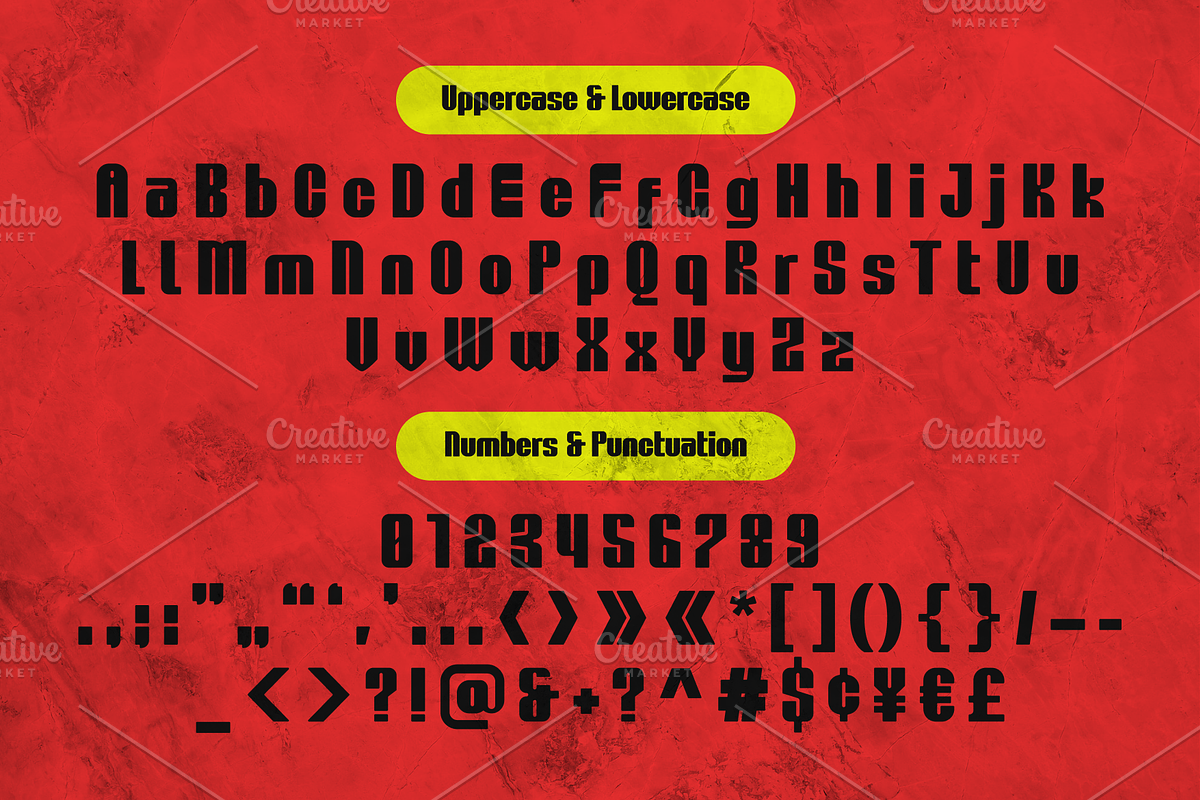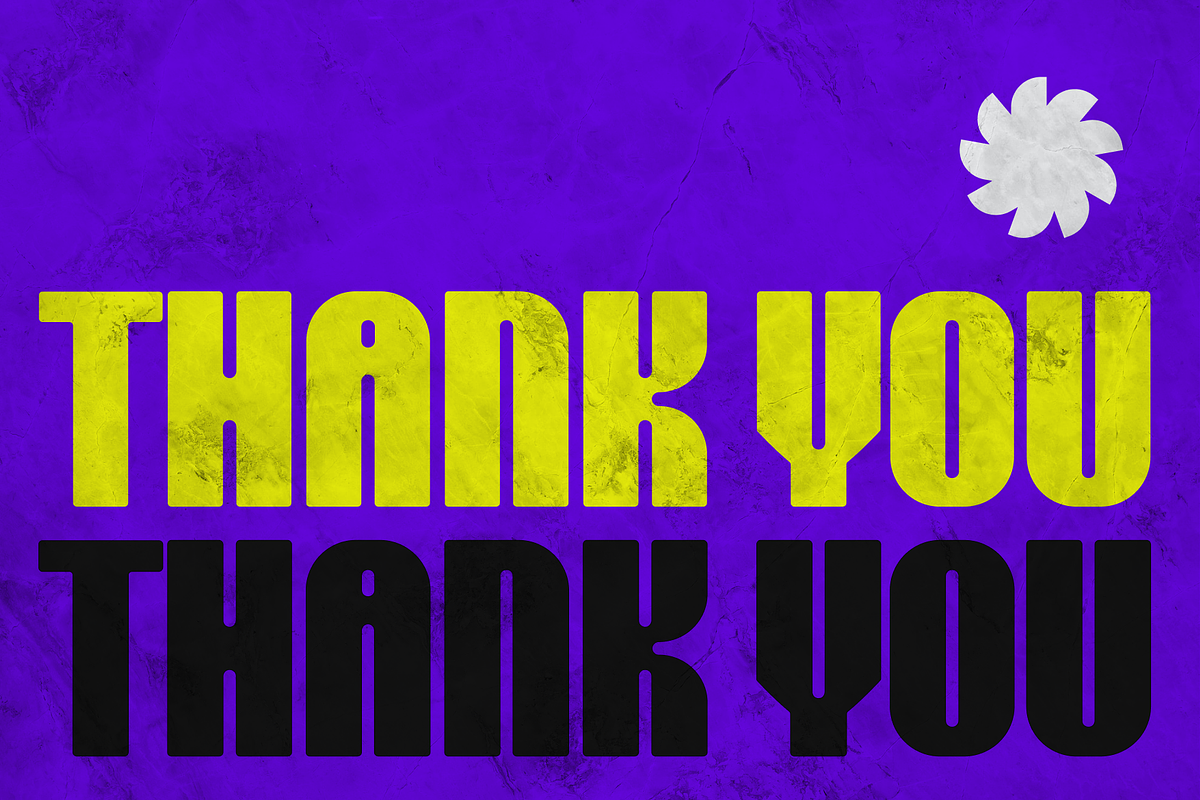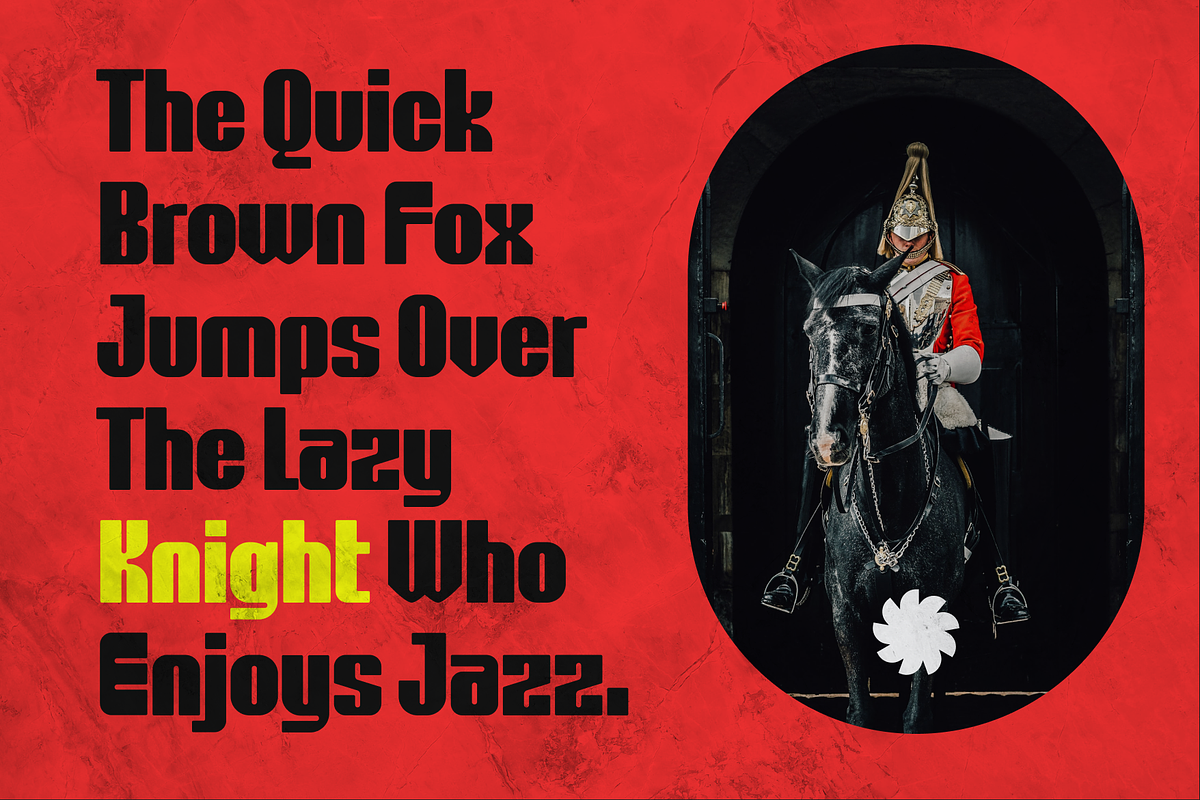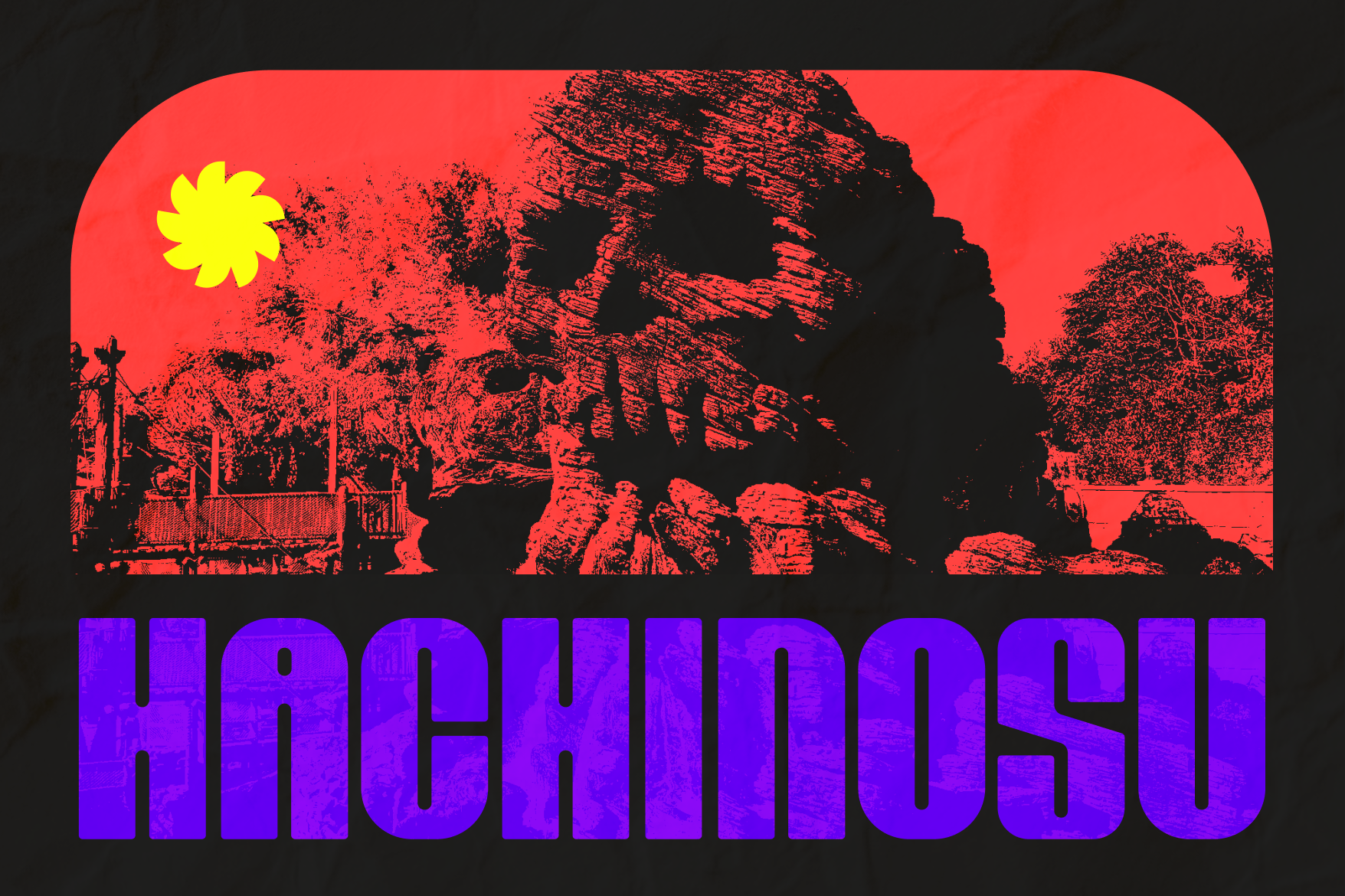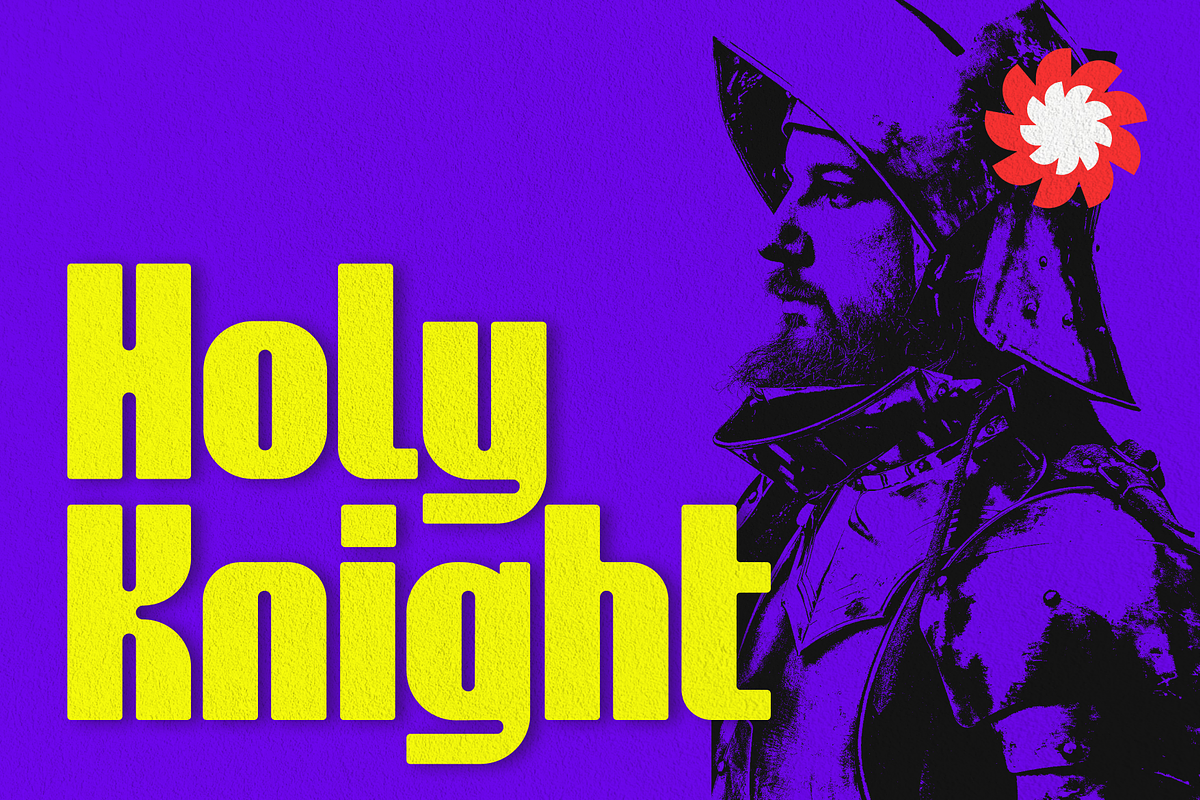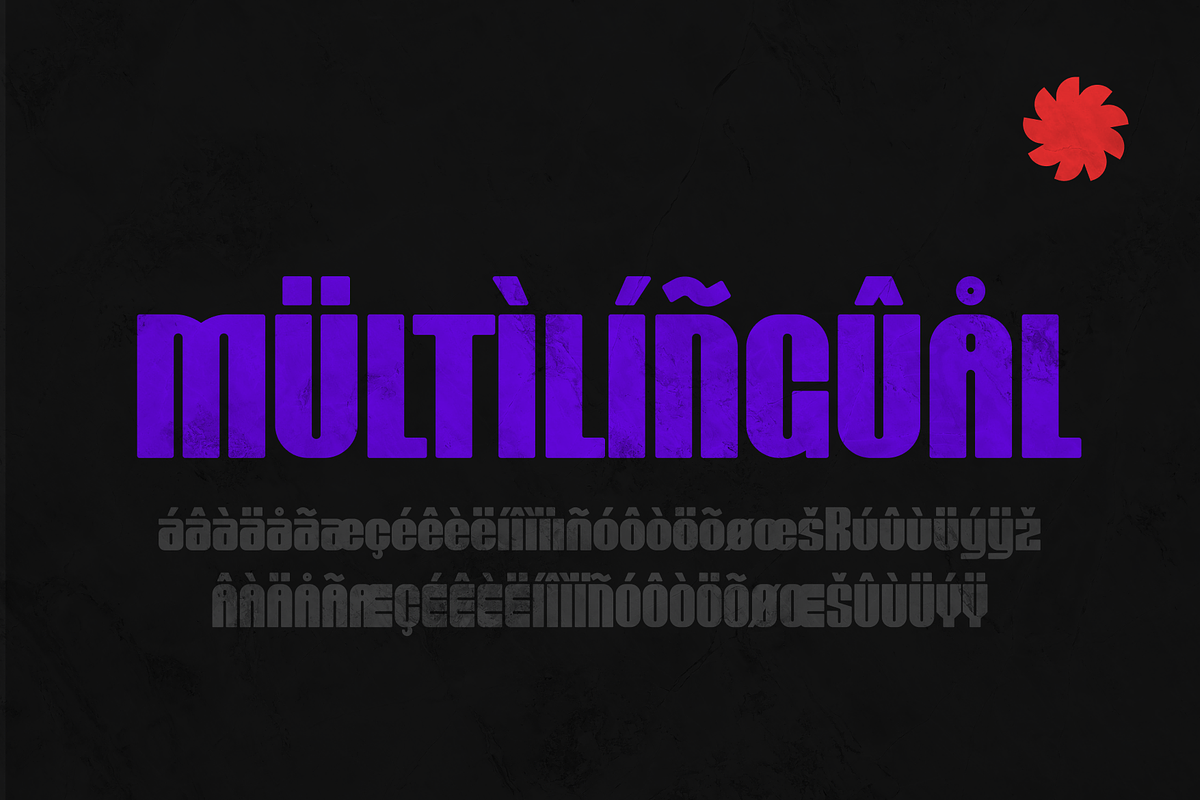
HACHINOSU - Bold Display Font
HACHINOSU Bold Font by Vestype
Get ready to make a bold statement with our newest font! With its strong lines and eye-catching design, this font is perfect for posters, banners, and other projects that require a powerful and impactful look.
- UPPERCASE
- LOWERCASE
- NUMBER
- PUNCTUATION
- MULTILINGUAL